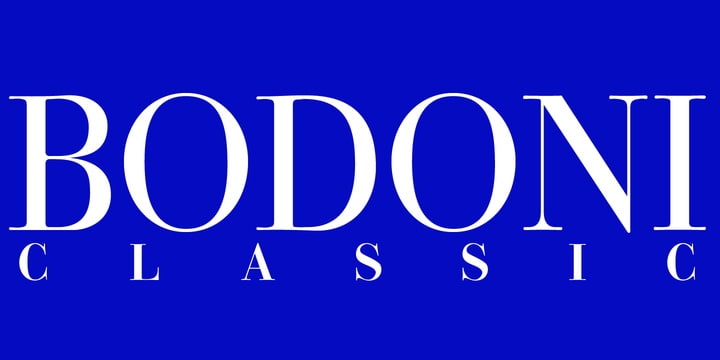
Bodoni Classic Pack Font
Bodoni Classic Pack Font is perfect for luxury fashion branding, high-end editorial layouts, sophisticated magazine design, premium corporate identities, elegant packaging solutions, classical music promotions, luxury hospitality communications, and refined advertising campaigns. This distinguished typeface collection works magnificently in both digital applications and print media where timeless elegance and classical sophistication are fundamental design requirements.
What makes Bodoni Classic Pack Font so exciting is its masterful preservation of Giambattista Bodoni's revolutionary typography through refined letterforms that embody the perfect balance of classical proportion and modern elegance that has defined luxury design for centuries. The font features distinctive characters with dramatic contrast between thick and thin strokes, refined serifs, and mathematical precision that communicates sophistication, authority, and the enduring appeal of neoclassical design principles. Its aristocratic personality and historical heritage make it ideal for brands seeking to establish premium credibility while appealing to audiences who appreciate traditional craftsmanship and timeless aesthetic excellence.
The Bodoni Classic Pack Font family includes comprehensive weight variations from light to bold, along with matching italic styles and classical alternates. Each style maintains the typeface's distinguished character while offering extensive multilingual support, elegant numerals, refined punctuation marks, and special characters designed to enhance luxury communications and classical branding efforts across international markets and sophisticated applications.
This remarkable typeface collection represents the perfect evolution of classical typography adapted for contemporary luxury and professional applications. Whether you're developing high-end fashion brand identities, creating sophisticated editorial content, or designing premium corporate materials, Bodoni Classic Pack Font Free Download delivers the classical authority and versatility needed for successful luxury communications. The font's neoclassical heritage makes it particularly effective for luxury brands, cultural institutions, high-end publishers, and organizations celebrating the intersection of traditional excellence and contemporary sophistication.
The meticulously preserved classical proportions and optimized contemporary performance in Bodoni Classic Pack Font ensure exceptional elegance while maintaining distinctive historical character. Its aristocratic versatility allows seamless application from detailed luxury publications to bold brand headlines, making it an invaluable foundation for comprehensive design systems that require both classical authority and modern functionality for discerning audiences.